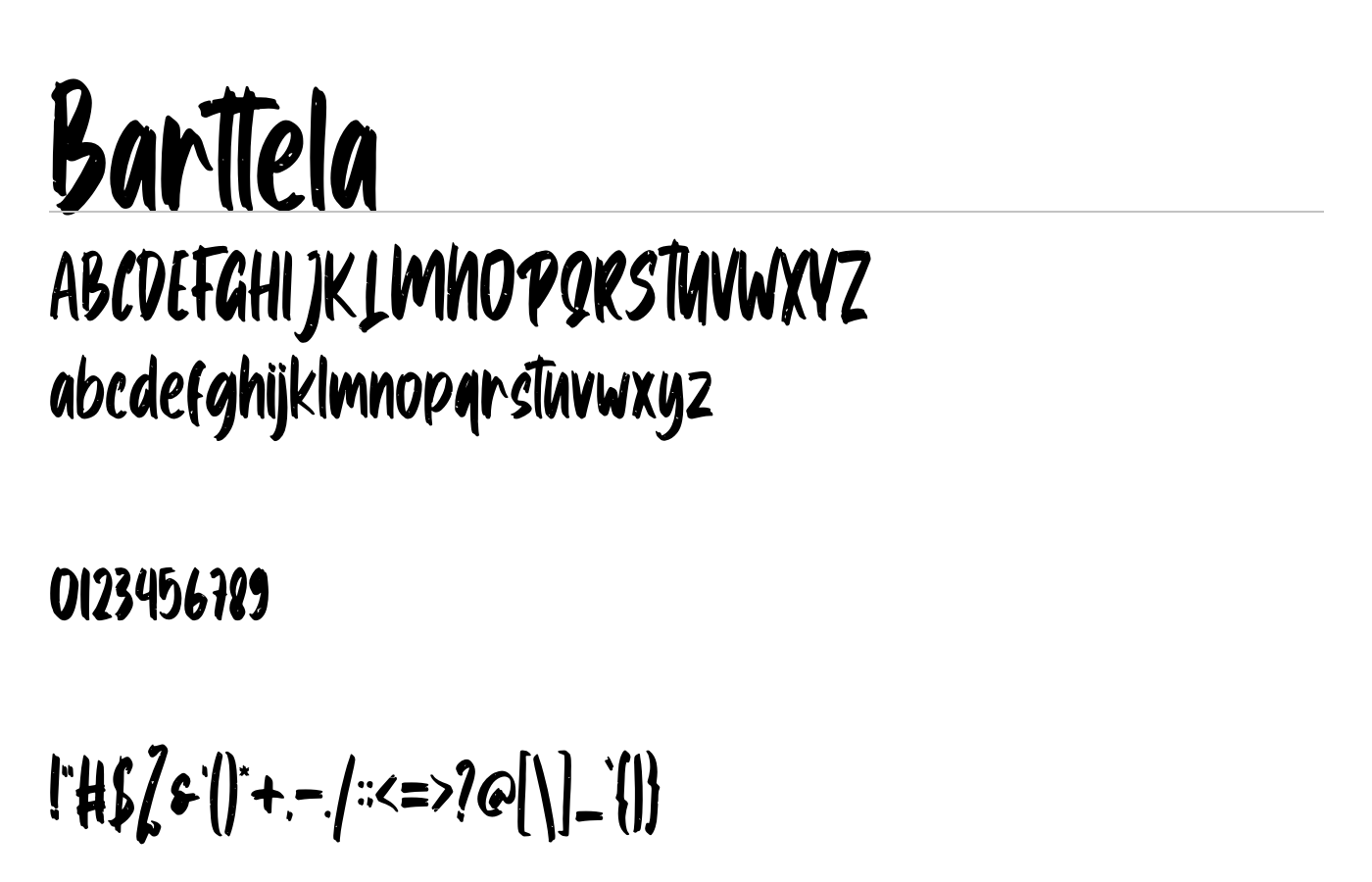
Barttela is a bold, hand-drawn script font with a lively and expressive character, featuring uneven strokes that create a casual, artistic feel. Its tall, condensed letterforms and slightly rough edges give it a playful yet impactful style, making it ideal for creative branding, posters, and informal headlines where personality and energy are key. This font works well in designs that want to convey originality and a hand-crafted touch.
Barttela Font
About Barttela Font